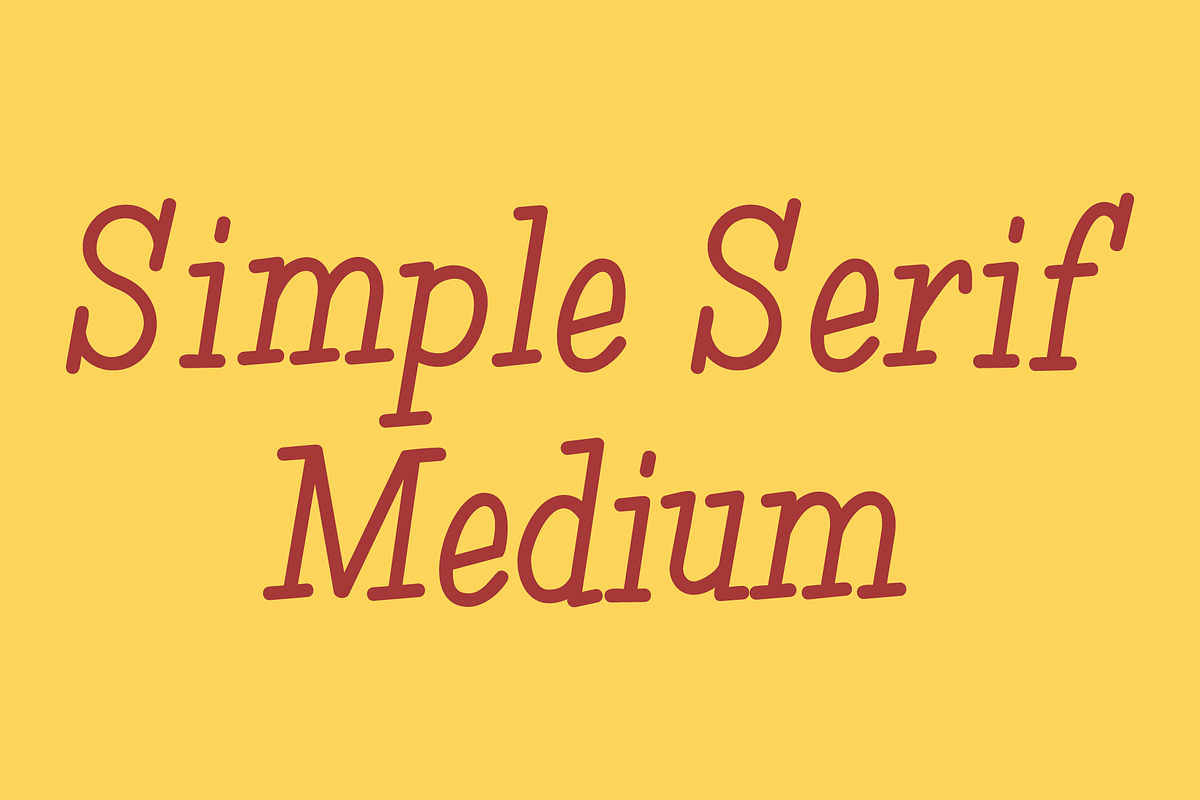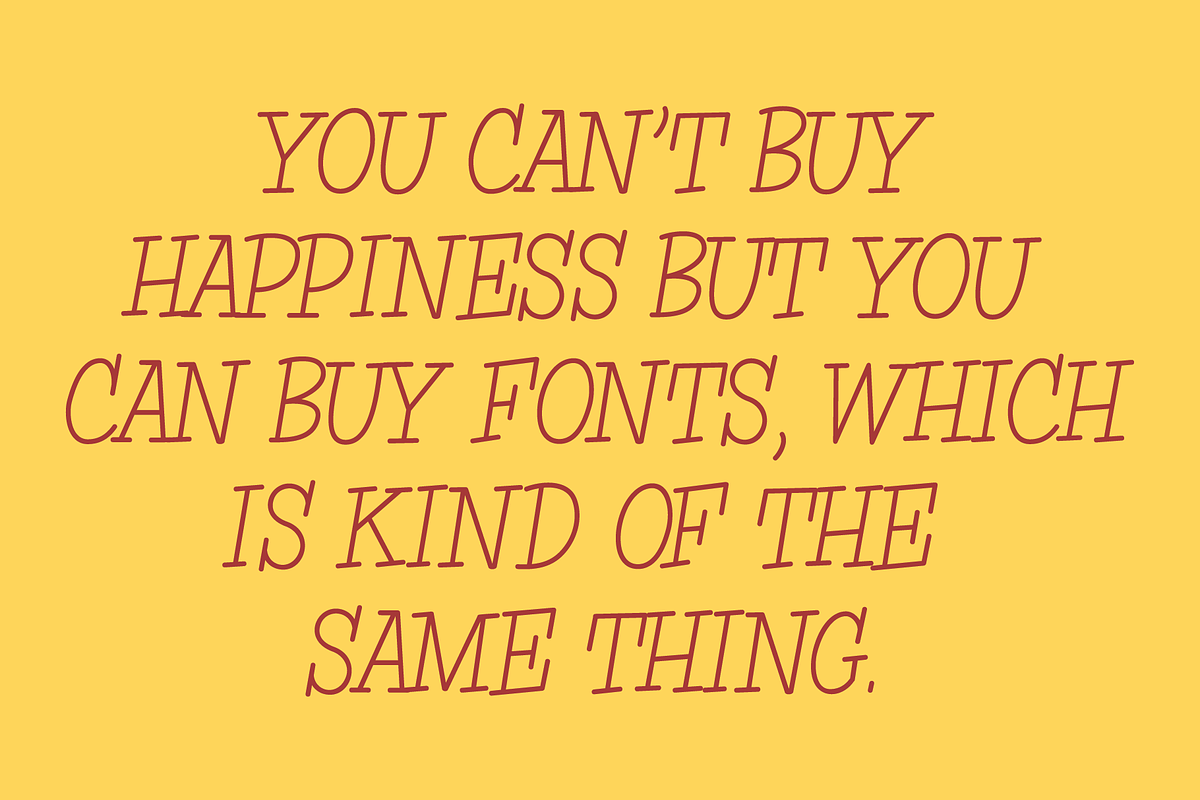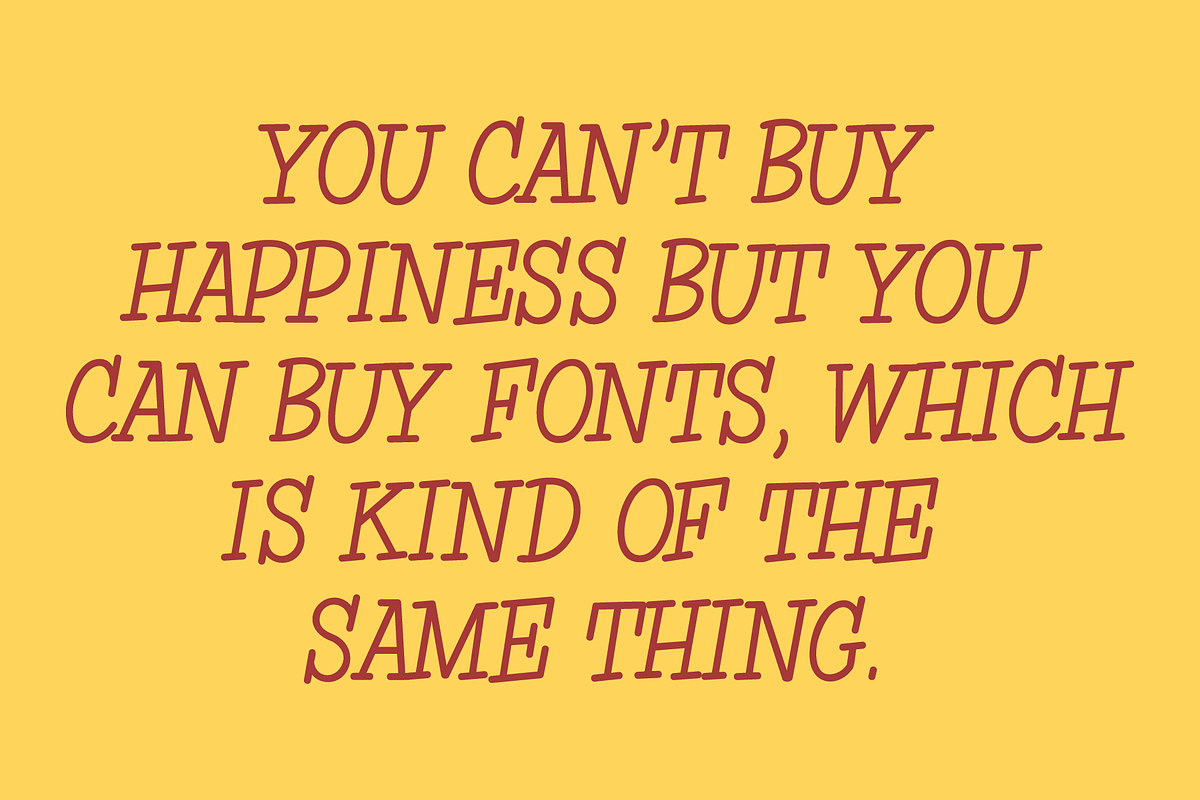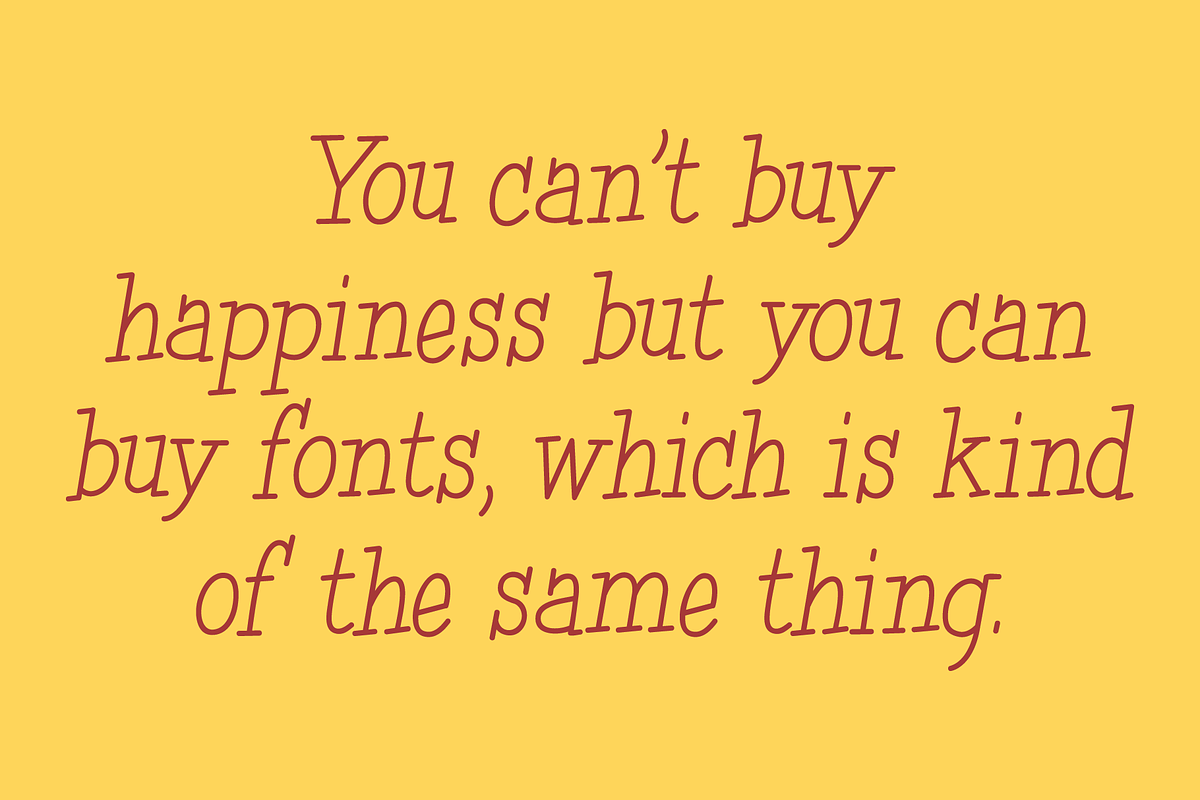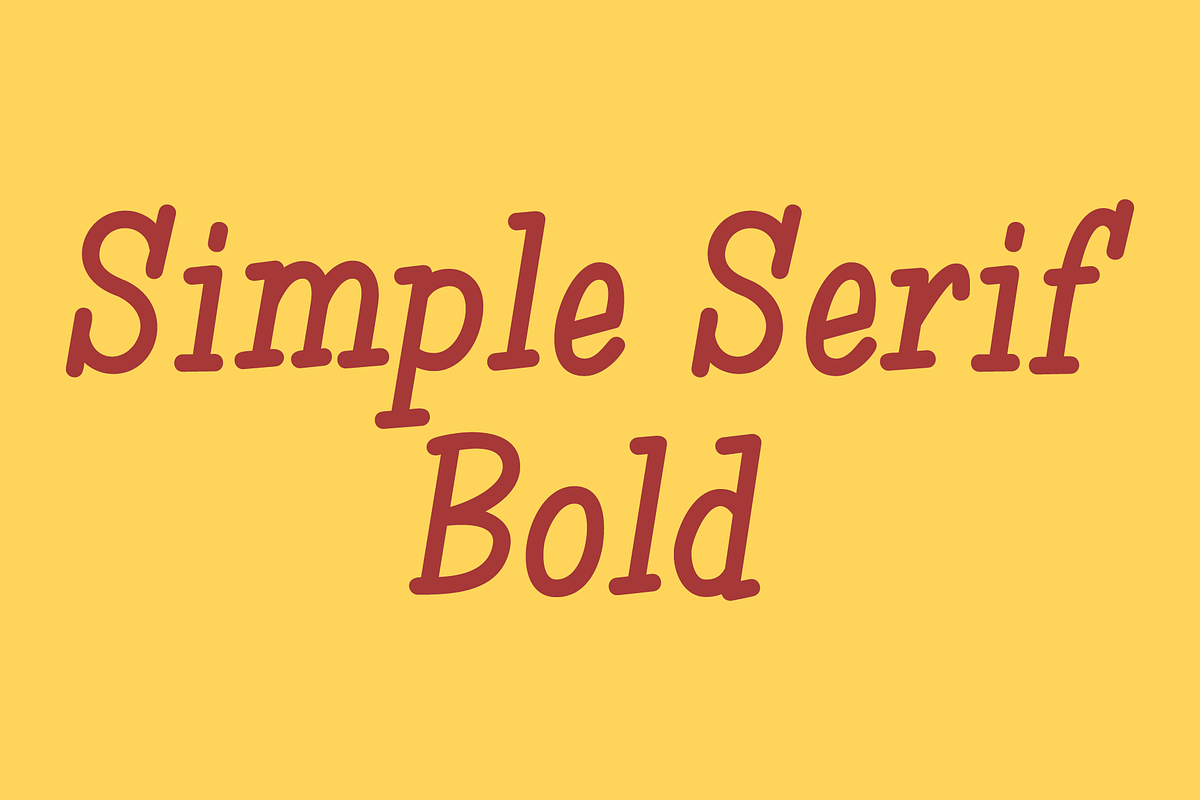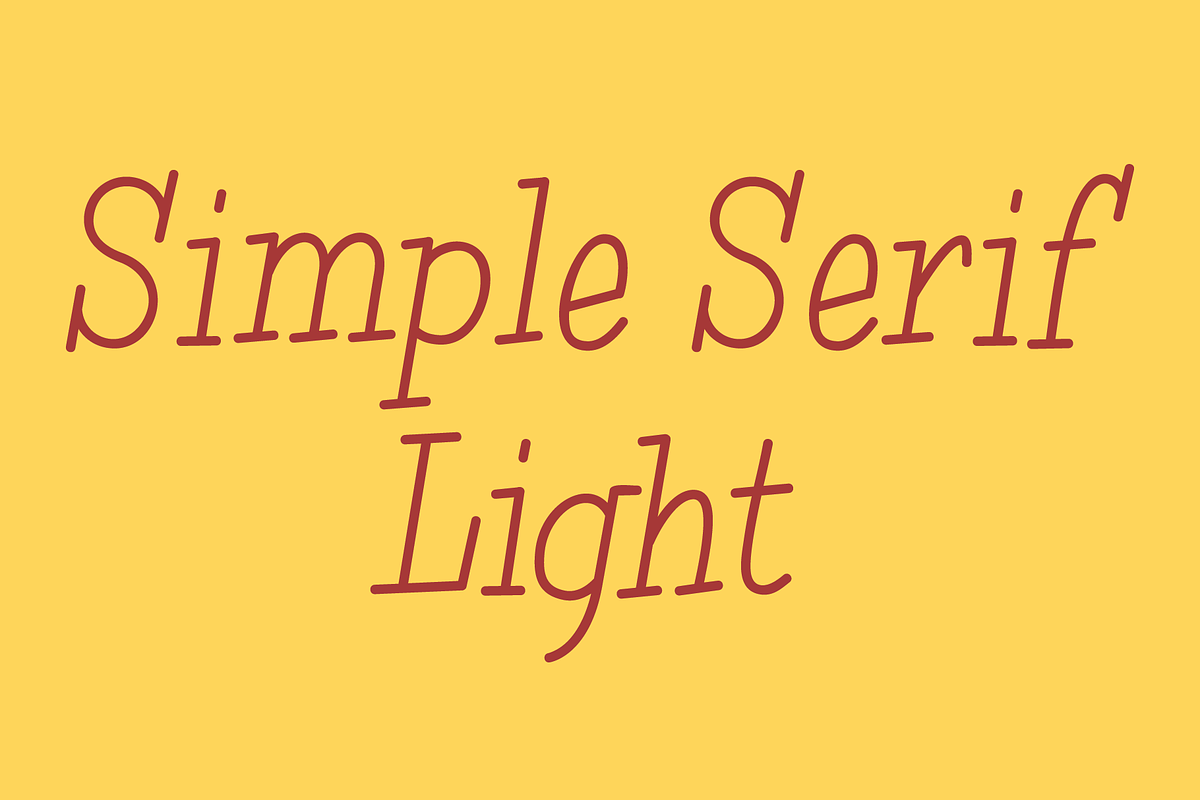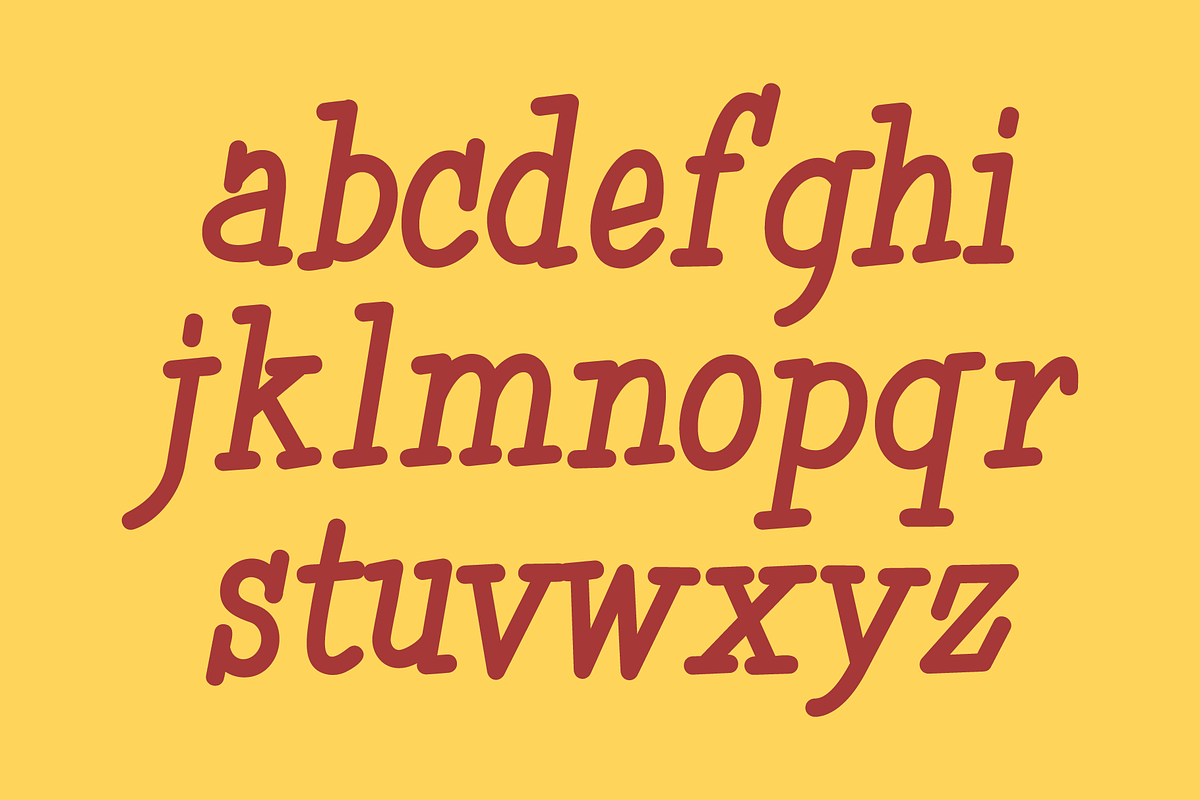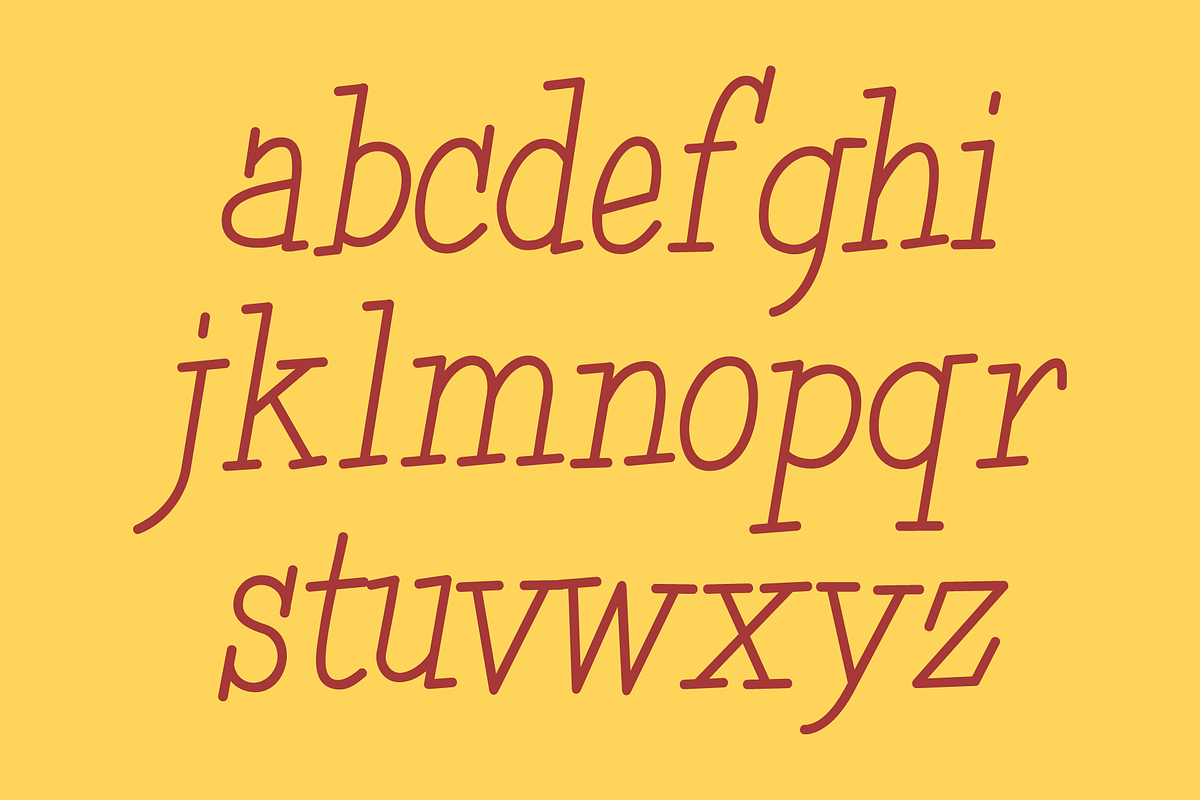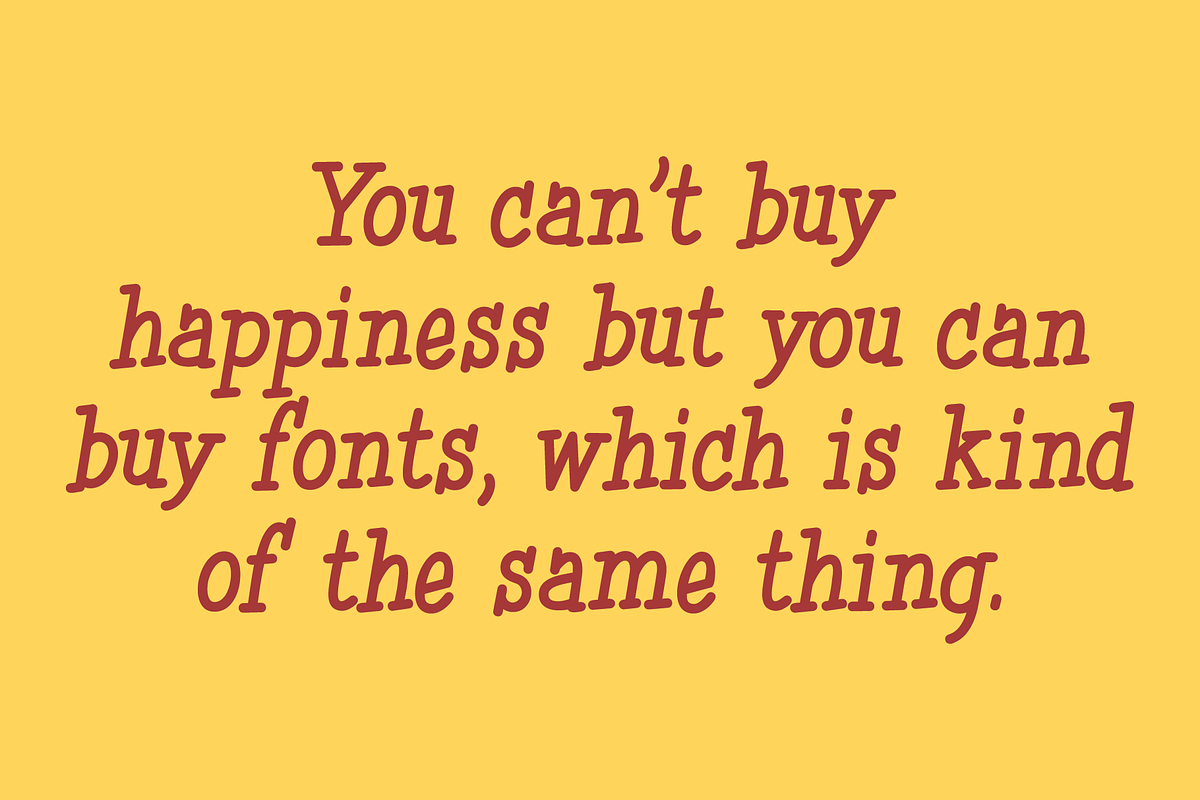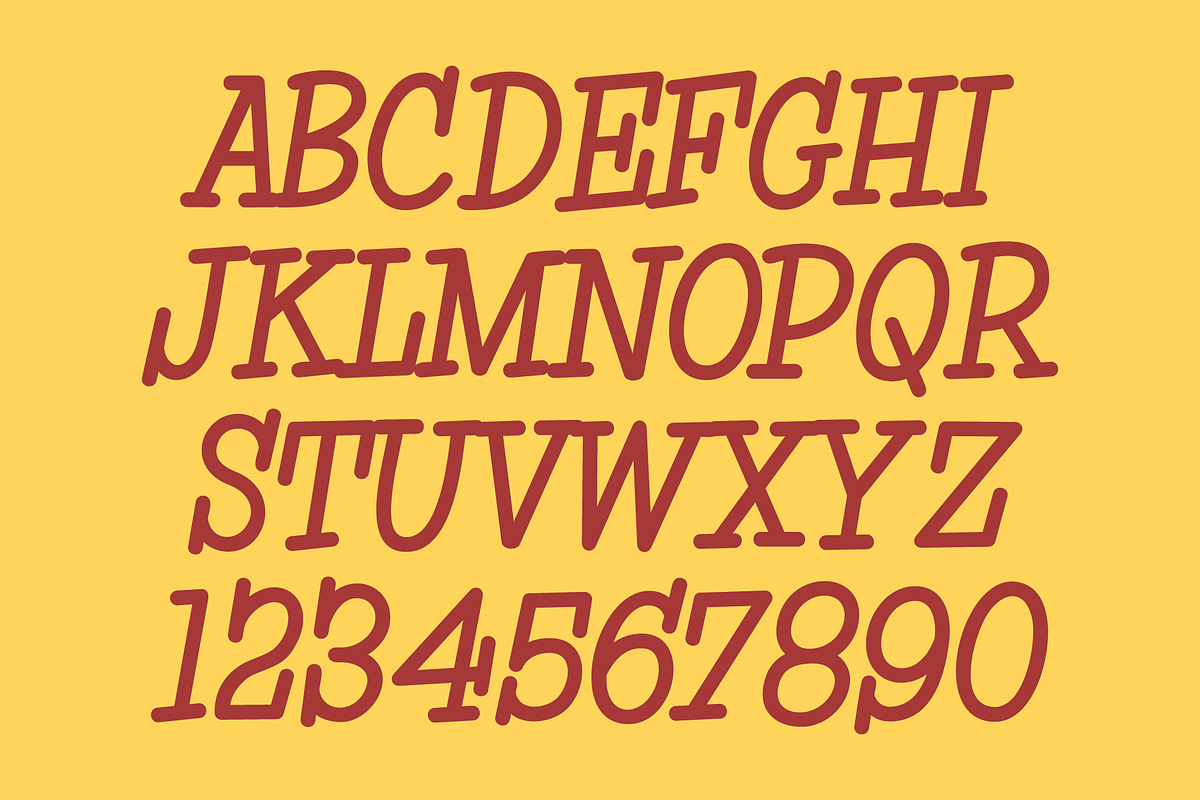
Simple Serif - Hand Lettered Fonts
The Simple Serif fonts were designed as hand-lettered serif fonts. They are casual and informal and are ideal for use in conveying these qualities. The fonts have upper and lowercase alphabets, numbers, punctuation, accented characters, symbols, and miscellaneous characters.